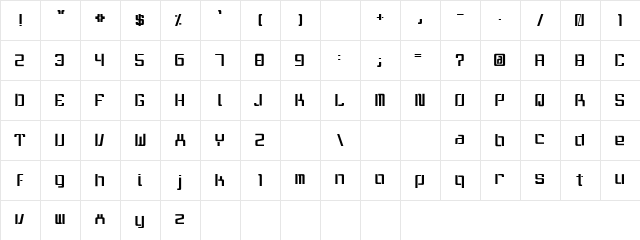
It wasn't me Regular
Design Context for It wasn't me
It wasn't me is a composed and adaptable typeface that performs quietly and consistently across a wide range of design contexts.